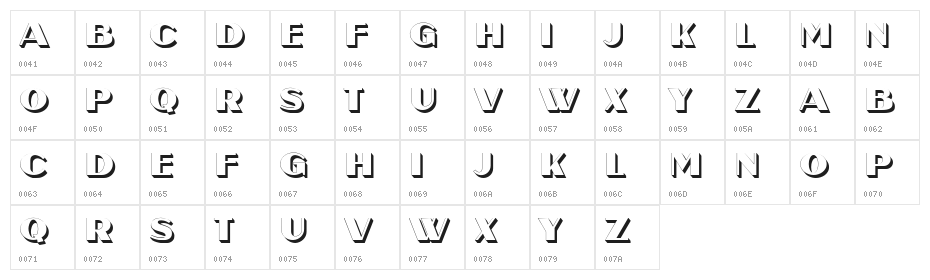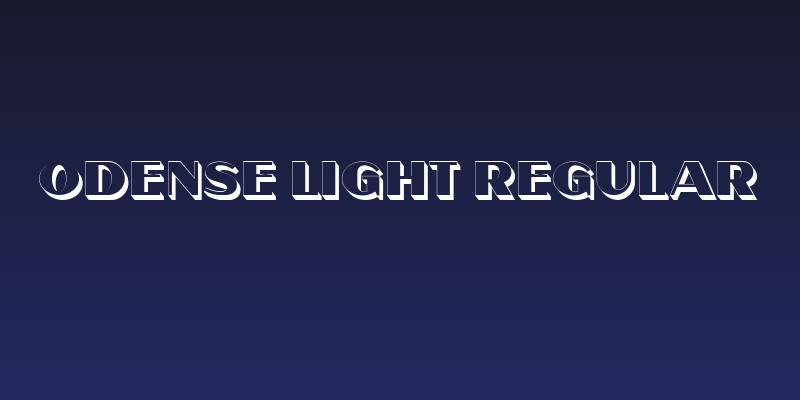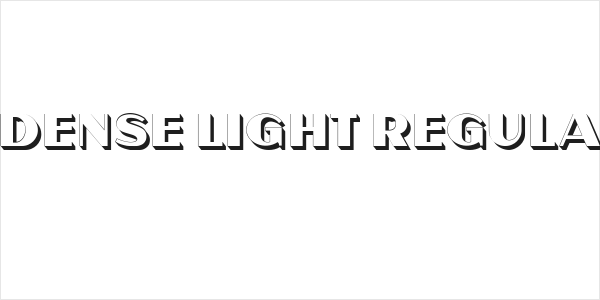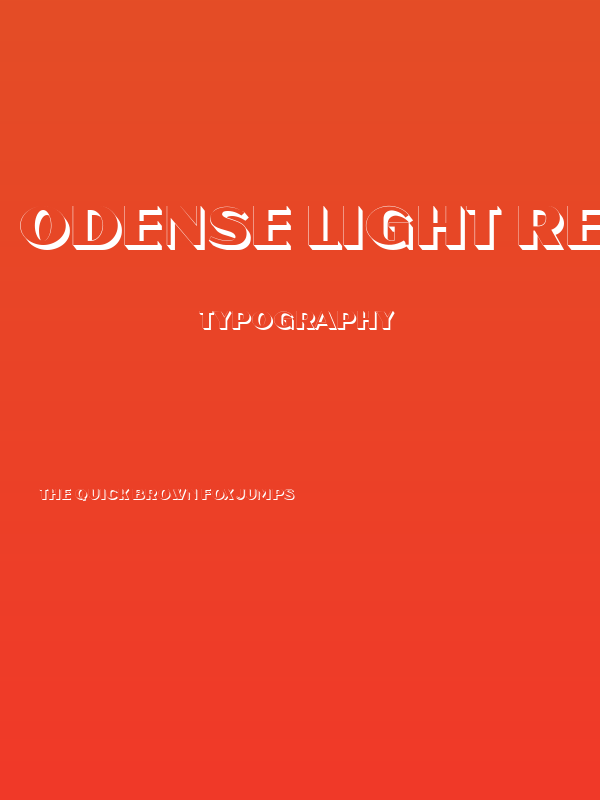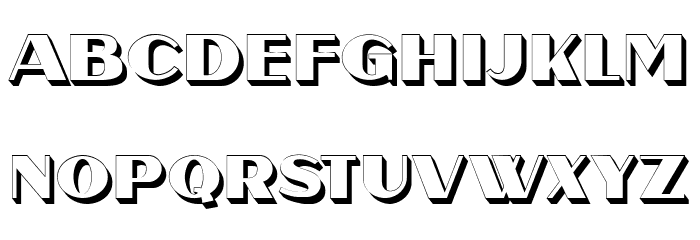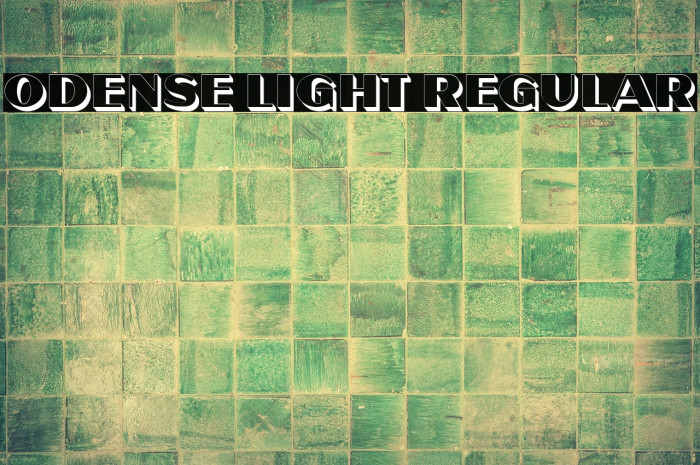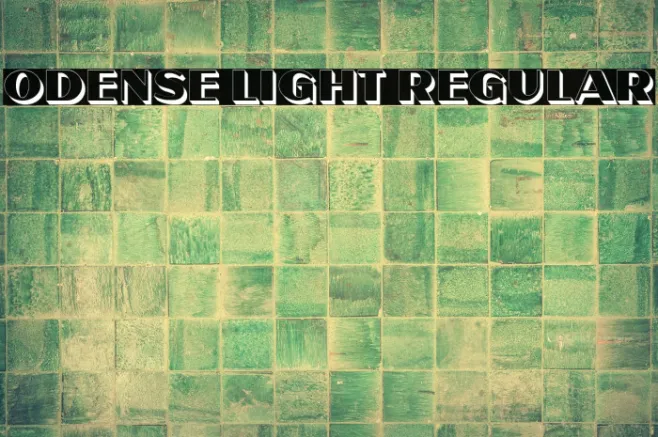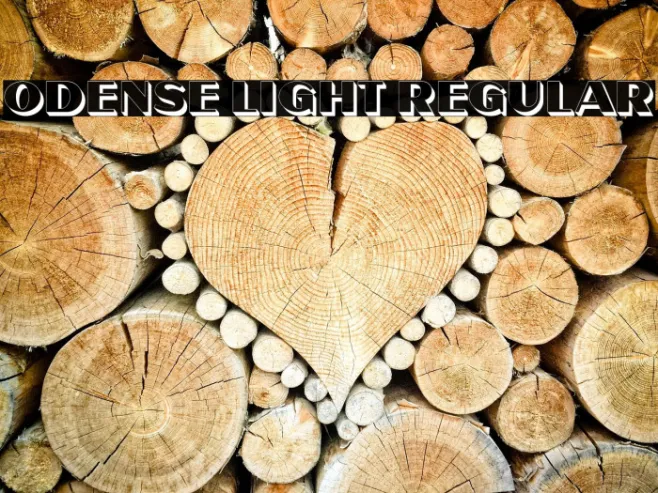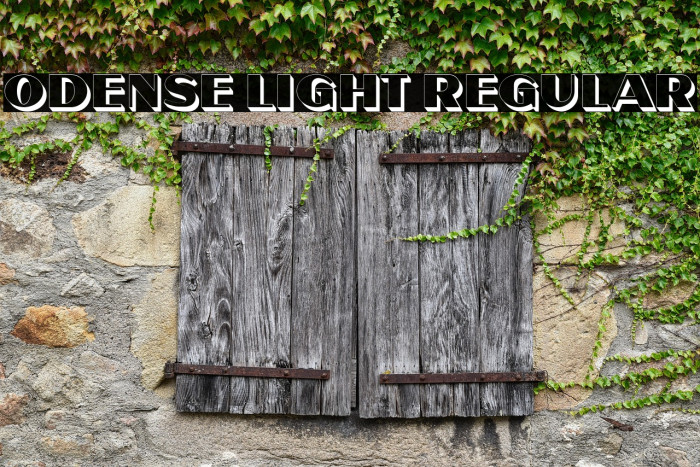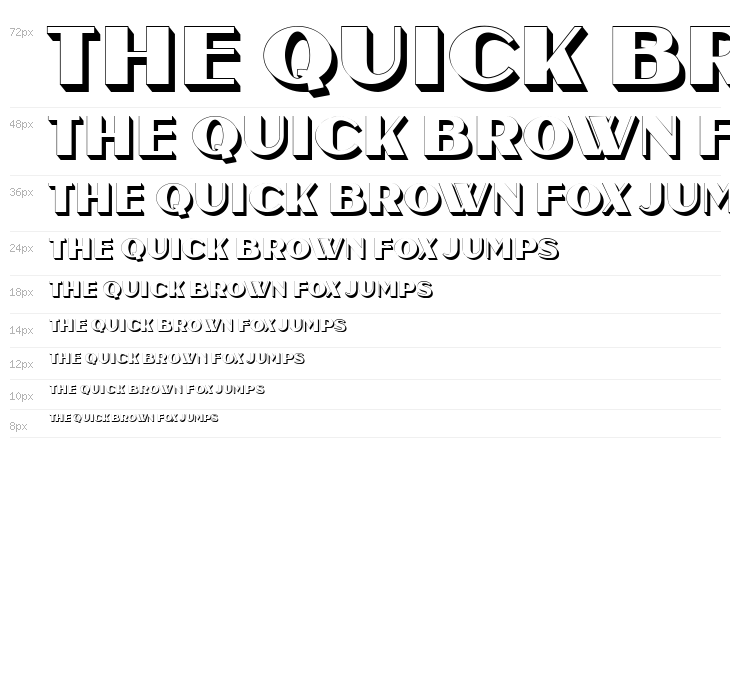
Odense Light Regular Font
Odense Light Regular Description
This font features a bold, three-dimensional appearance with a shadow effect that gives it a striking and impactful look. The characters are uppercase, with a geometric and structured design that emphasizes clarity and readability. The shadow effect adds depth, making it suitable for eye-catching headlines or titles. The font's clean lines and modern aesthetic make it versatile for various design projects, while the shadow provides a unique twist that sets it apart from more traditional fonts.
| Proposed Projects | Ideal for use in posters, advertising, branding, and any project requiring a bold statement. |